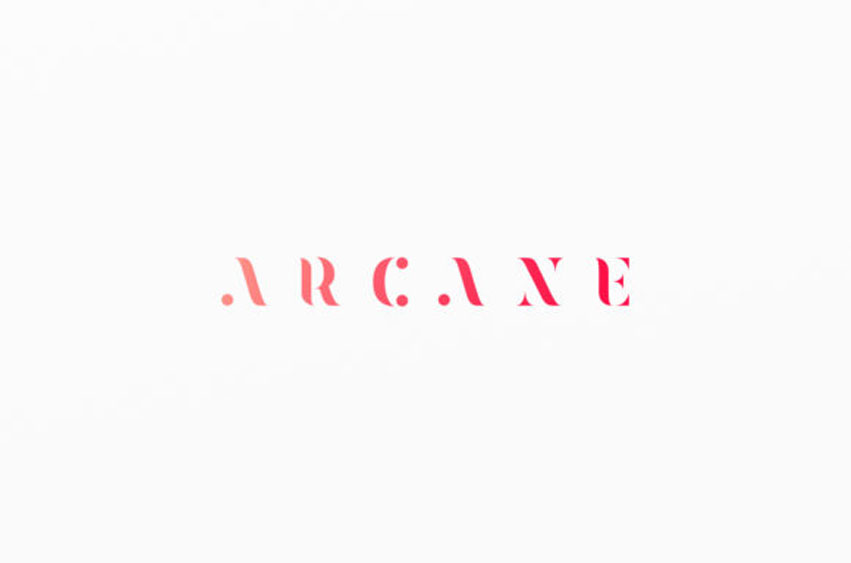
Arcane Font
Arcane Font is an incredibly cool and elegant display font. Expertly designed to make your creation look out of this world, this font will look gorgeous on a variety of ideas.
This font would be ideal for writing web designs, business cards, or pretty much anything else that requires a unique touch.